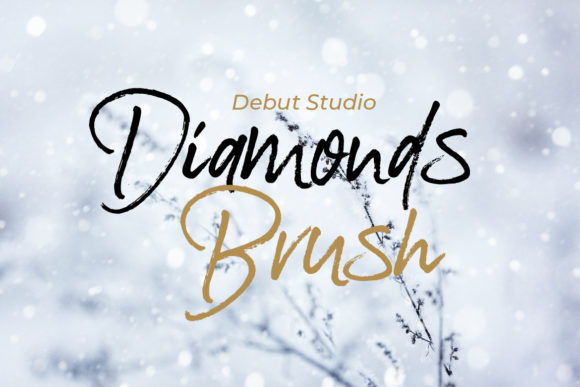
Get ready to be dazzled by Diamonds Font, a delightful script font family that will add a captivating touch to all your web design ventures. Designed with a passion for excellence by Debut Studio, Diamonds Font is the ultimate fusion of elegance and casual charm. Step into a world where fonts come alive, where words dance with grace, and designs shimmer with newfound brilliance.
With Diamonds Font, you'll discover a treasure trove of possibilities, as this versatile font family effortlessly adapts to a myriad of design styles. Whether you're crafting a striking logo, designing an enchanting invitation, or developing a captivating website, Diamonds Font will gracefully elevate your creations to new heights.
Unleash your creativity and let Diamonds Font guide you on a journey of visual storytelling. Its alluring curves and playful strokes will weave a spellbinding tale that captivates your audience and leaves them mesmerized. You'll be amazed at how effortlessly Diamonds Font transforms your designs, adding a touch of whimsy, a dash of sophistication, and a whole lot of enchantment.
Diamonds Font is more than just a font; it's an experience. Its flowing lines and enchanting charm will transport you to a world where imagination knows no bounds. Let your designs sparkle and shine with Diamonds Font, and prepare to be swept away by its enchanting aura.
Don't settle for ordinary fonts that blend into the background. Embrace the magic of Diamonds Font and let your designs take center stage. With its captivating beauty and endless versatility, Diamonds Font is the perfect choice for designers, bloggers, marketers, and anyone who dreams of creating visuals that leave a lasting impression.
So why wait? Dive into the realm of Diamonds Font today and unlock a world of creative possibilities. Let your designs radiate with brilliance and let your audience fall in love with your creations. Diamonds Font is the key to unlocking your design potential. Embrace its allure, and together, you'll create masterpieces that ignite hearts and minds.